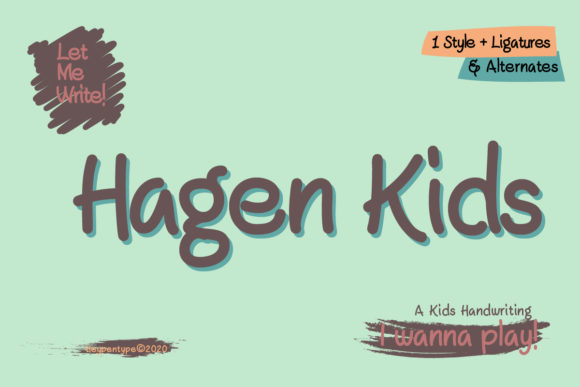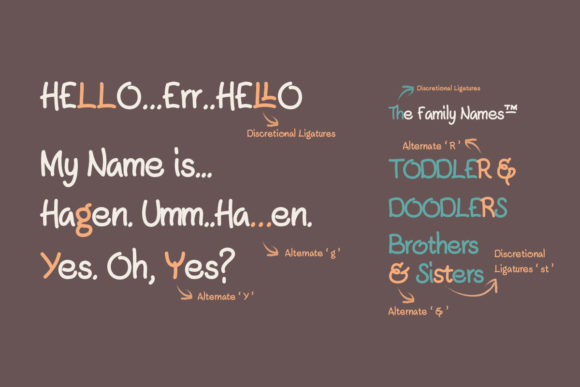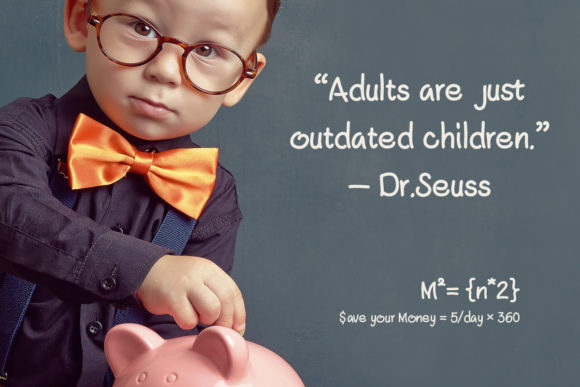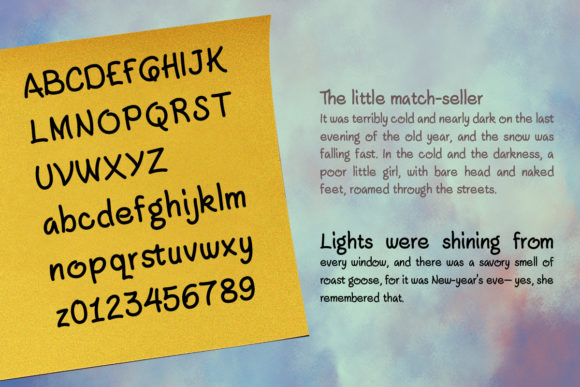
Hagen Kids Font
About Hagen Kids Font
Hagen Kids embodies fun, quirkiness and authenticity. This enchanting handwritten font will turn any creative idea into a true standout.